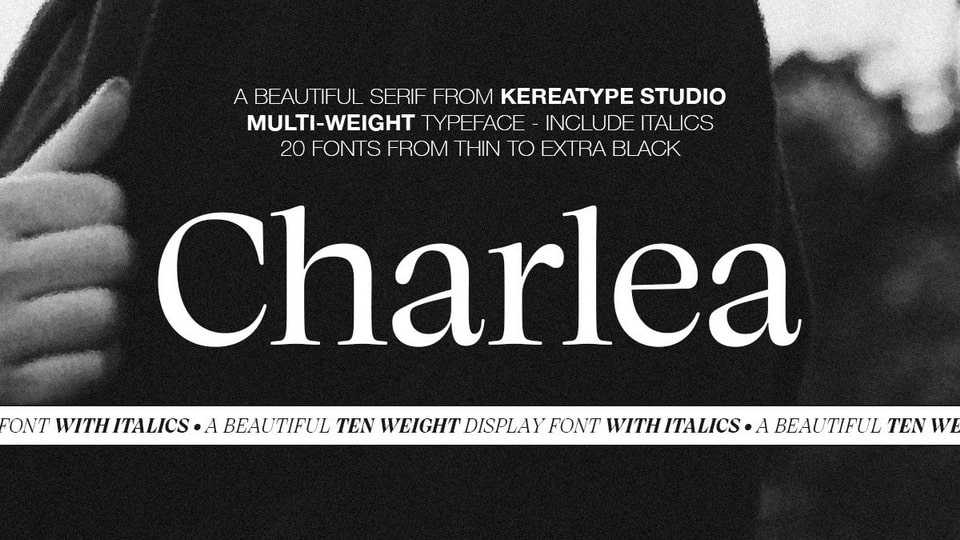
Download Charlea font, a serif typeface inspired by the beauty of modern serifs, fused with modern appeal to cater to contemporary needs. Charlea offers numerous possibilities for application in various graphic or editorial projects.
Designer: Kereatype Studio